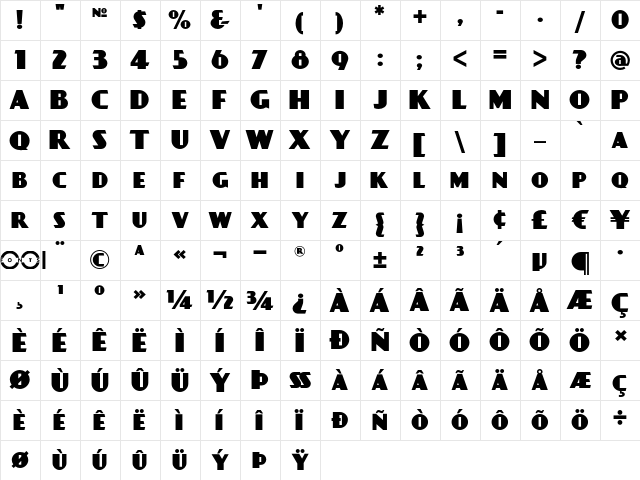
Day Poster Black NF Regular
Design Context for Day Poster Black NF Typeface
Day Poster Black NF offers clean, dependable letterforms without strong stylistic allegiance, making it a practical choice for designers who need flexibility.